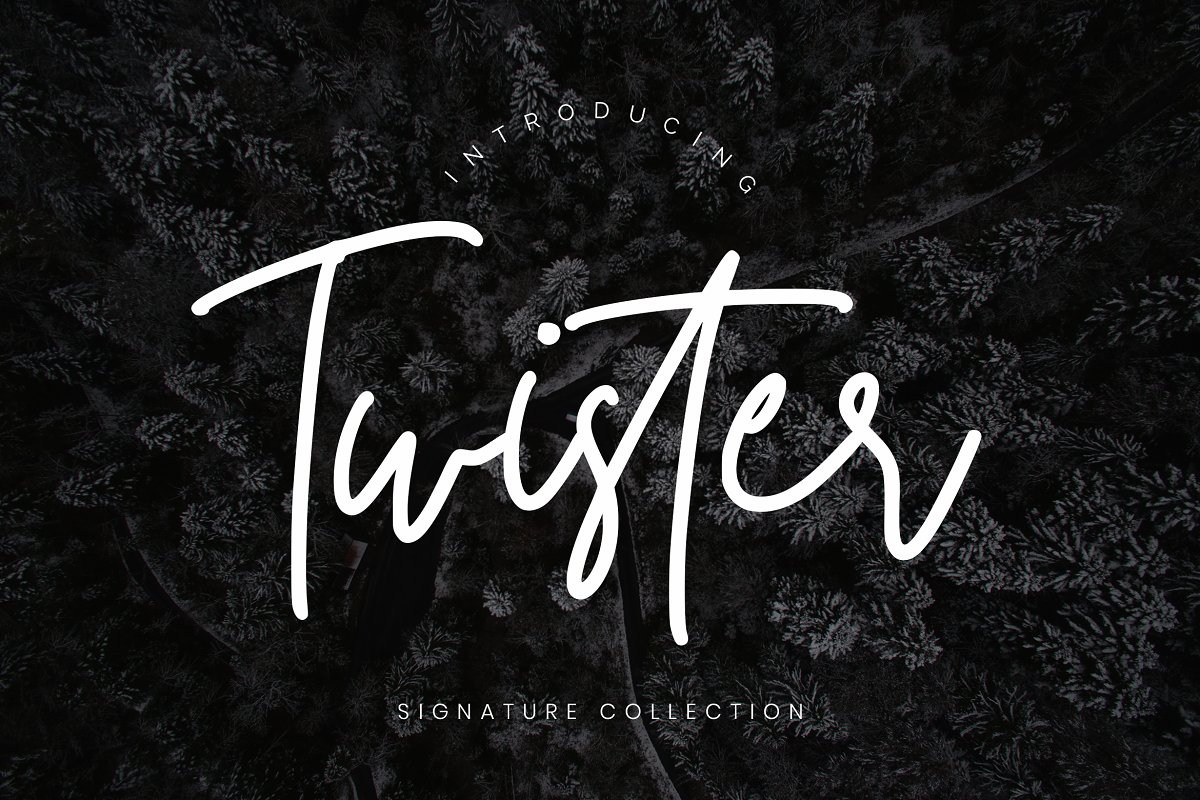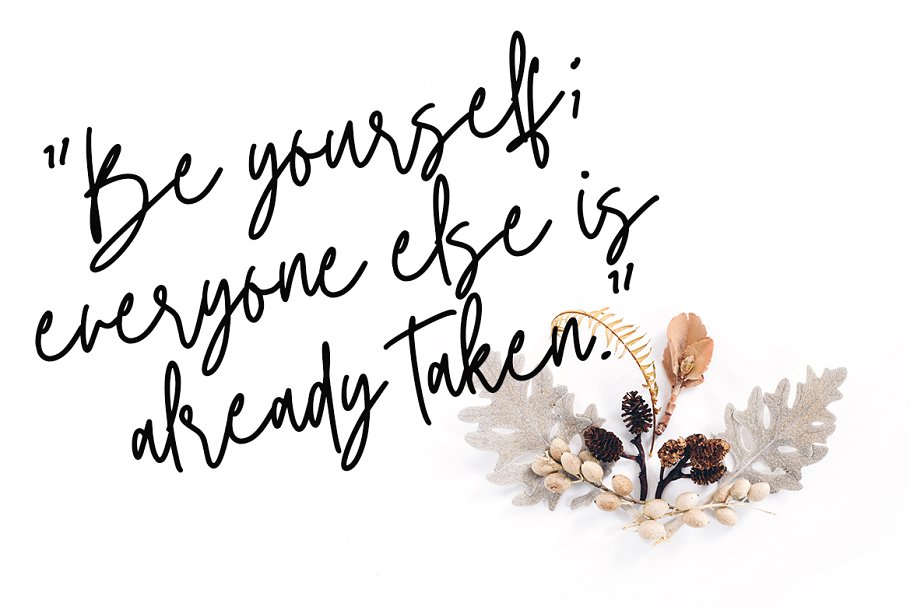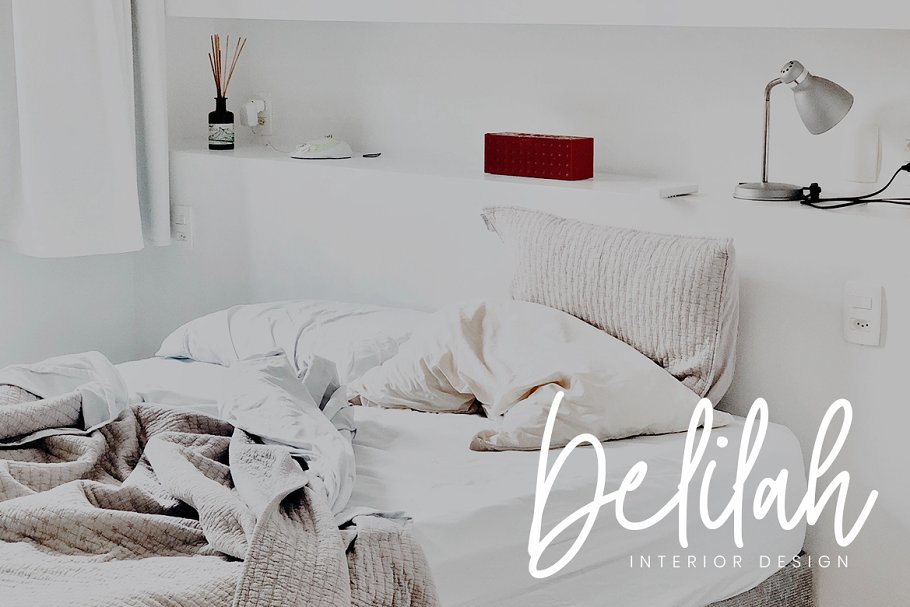
About the Twister Script Business Font
Twister made with simple and elegant hand writing will create stunning signature style, Twister is perfect for branding projects, logo, wedding designs, social media posts, advertisements, product packaging, product designs, label, photography, watermark, invitation, stationery and any projects that need handwriting taste, What’s Included :Twister (OTF/TTF/WOFF) Web FontsStandard glyphs LigatureWorks on PC & MacSimple installationsAccessible in the Adobe Illustrator, Adobe Photoshop, Adobe InDesign, even work on Microsoft Word